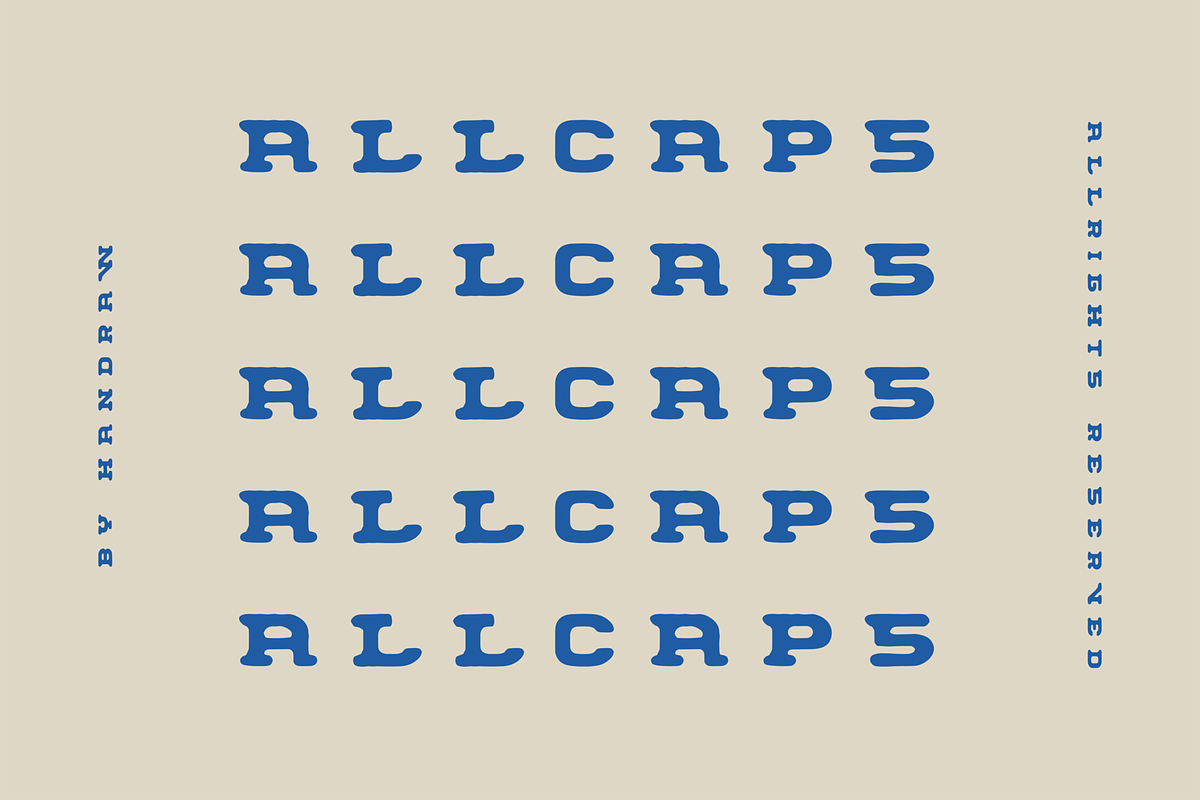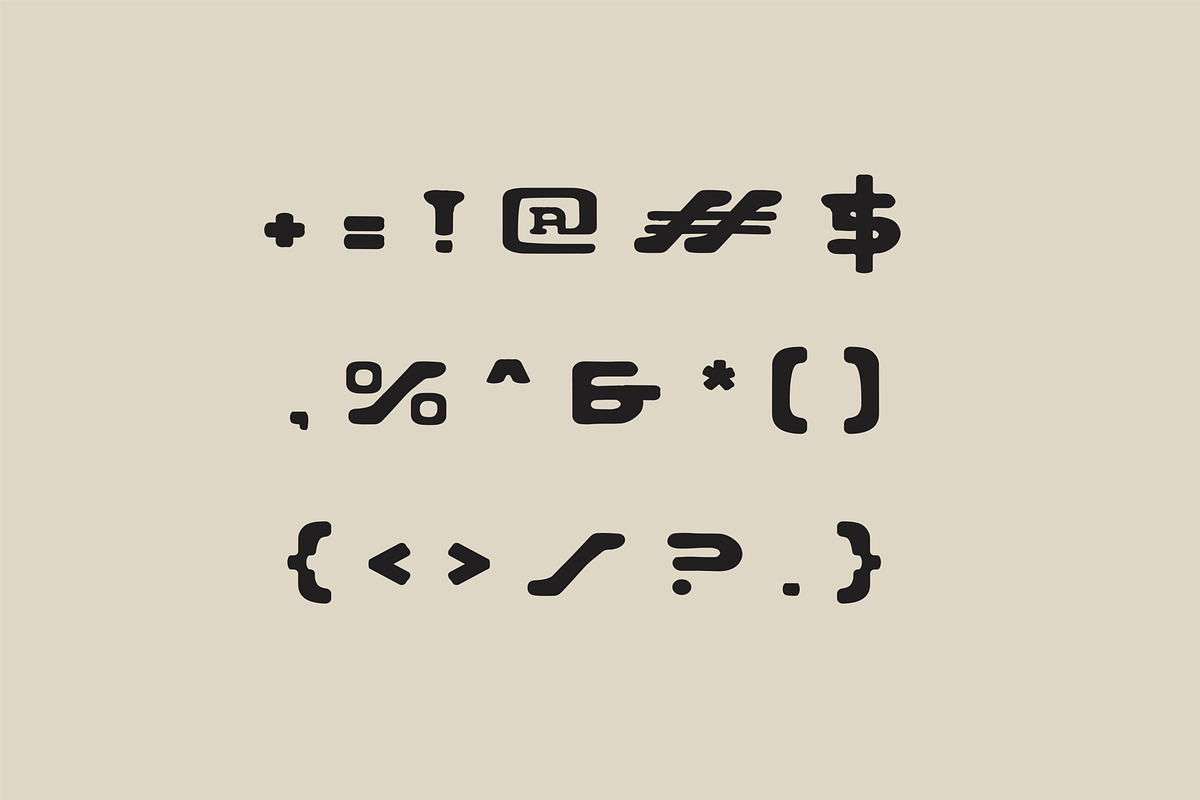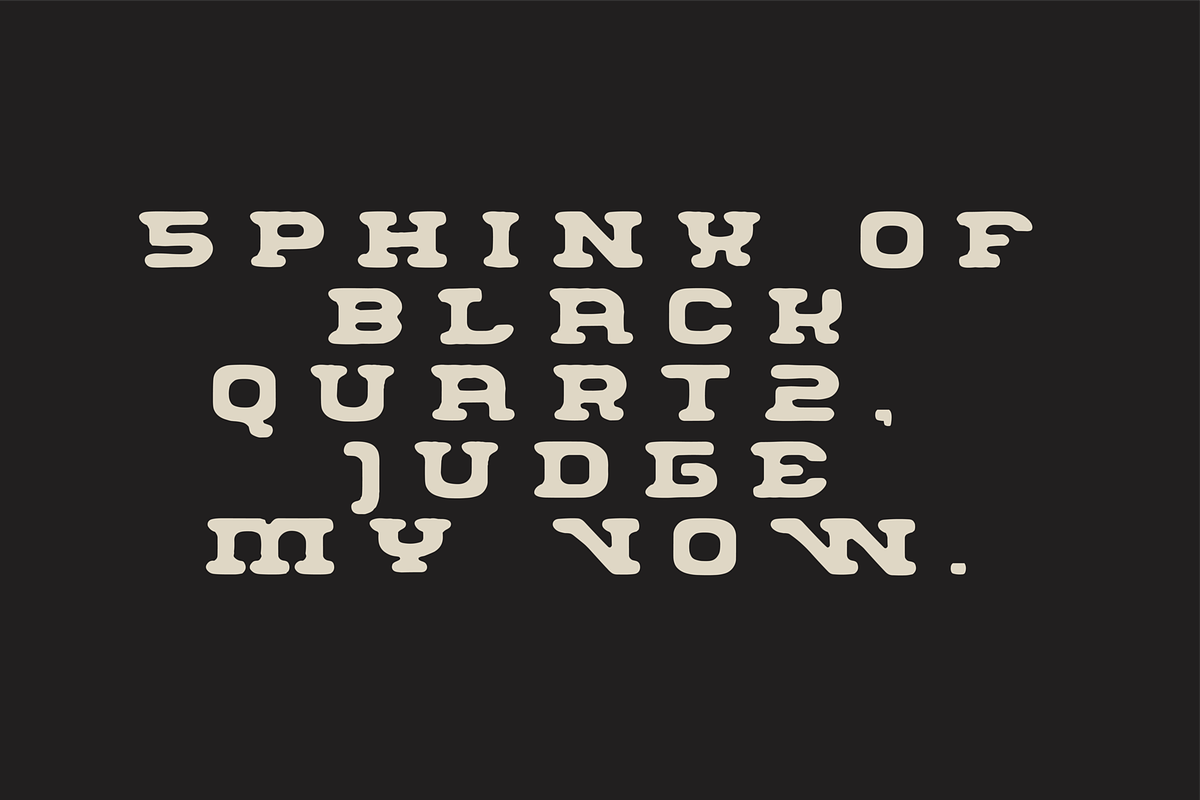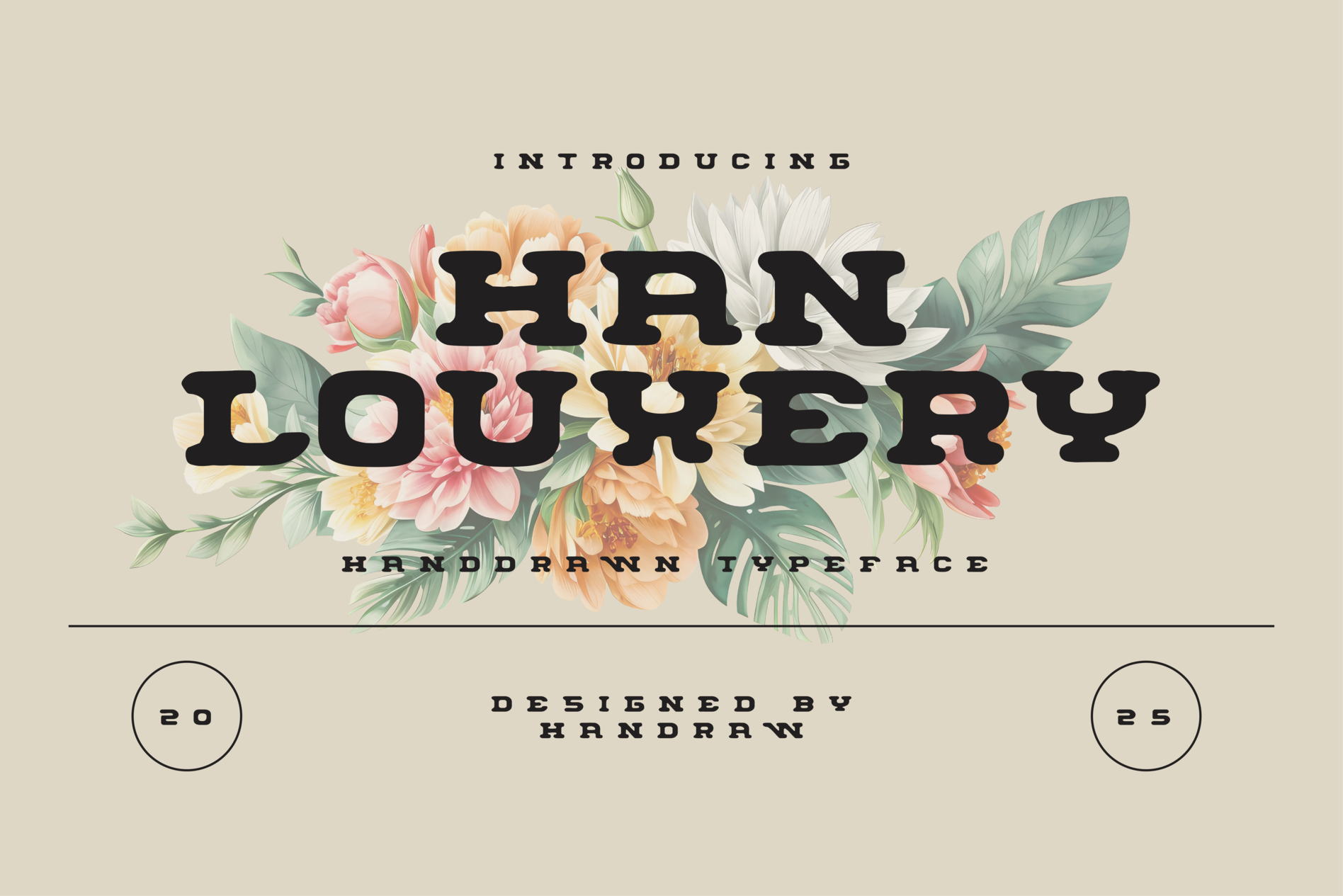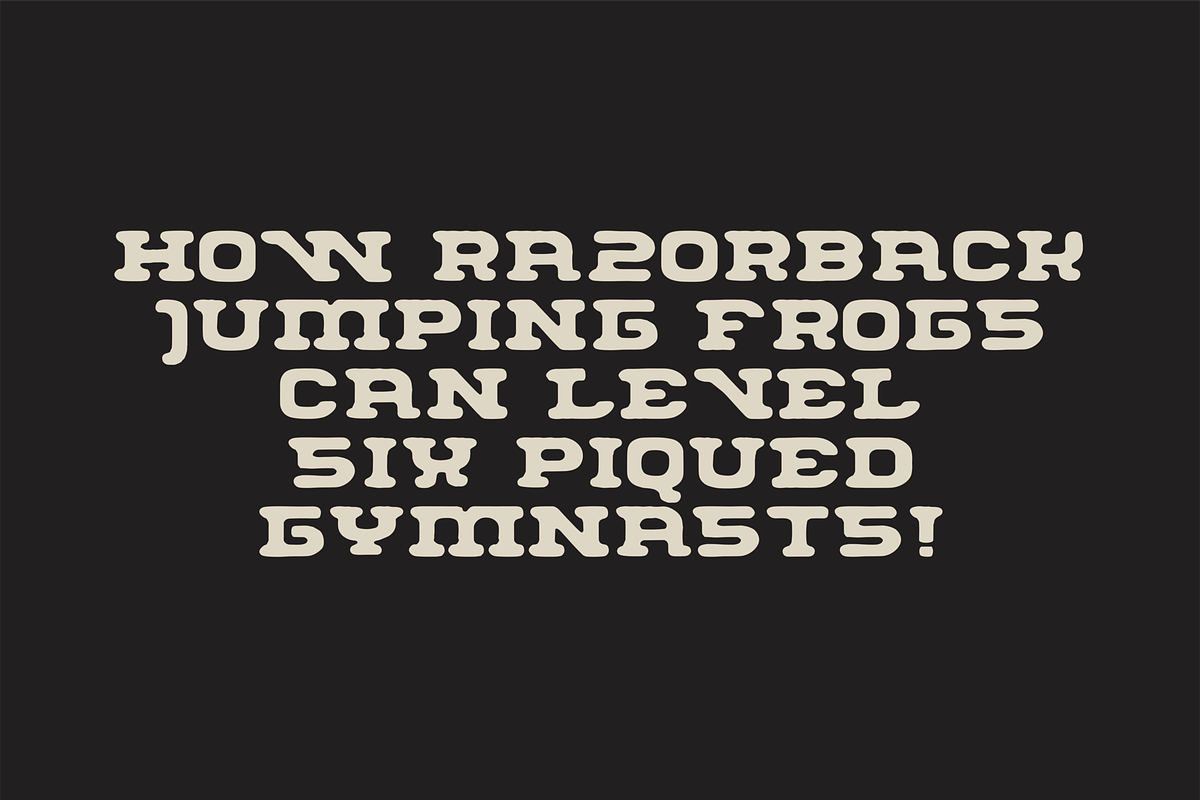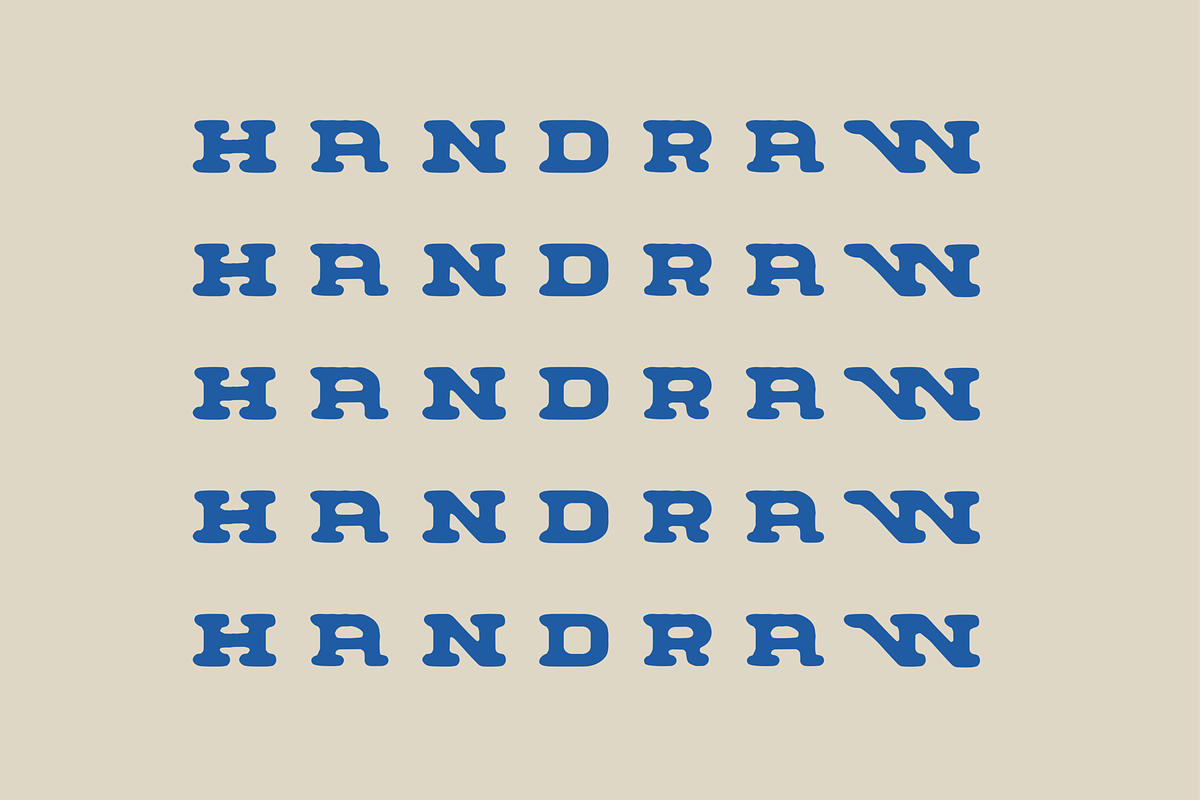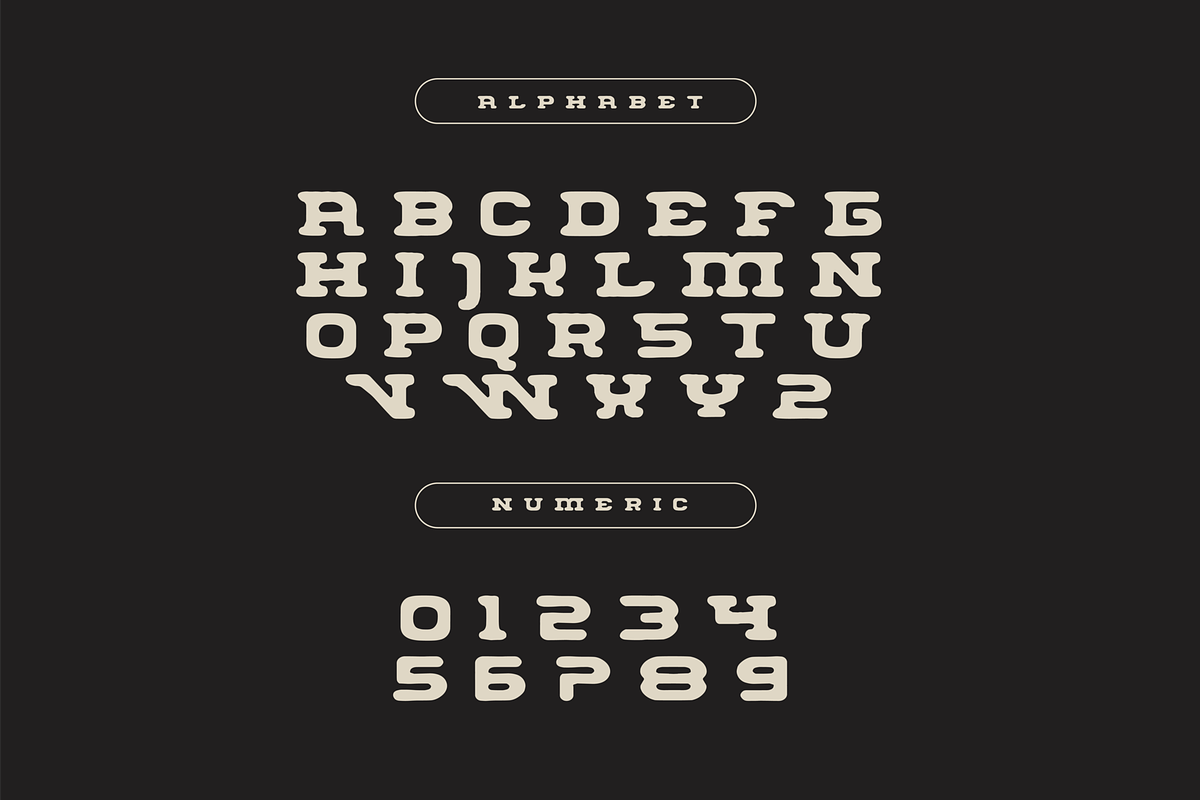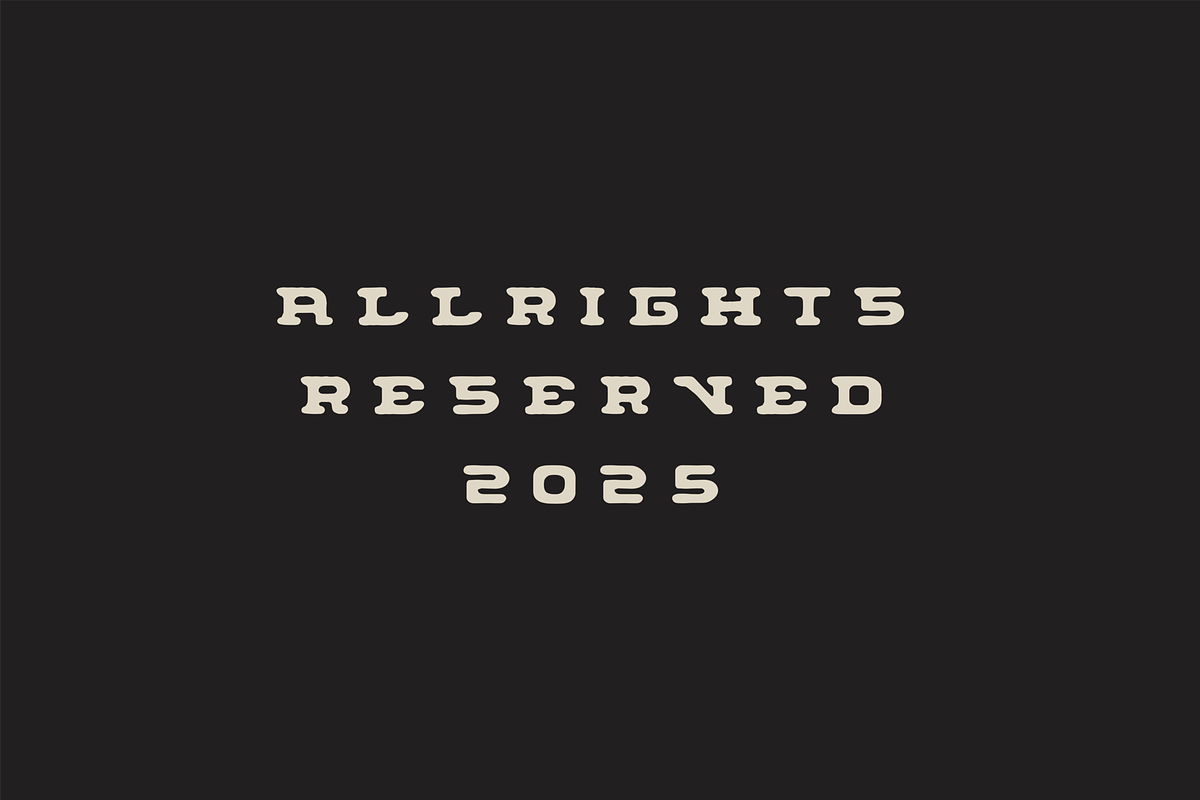
HAN Louxery - Charm Display Font
Han Louxery is a unique hand-drawn retro font that blends nostalgic charm with a modern flair. With its carefully crafted strokes, this font evokes the artistic style of vintage lettering while maintaining a clean, legible appearance. Its playful yet sophisticated design makes it perfect for a wide range of creative projects, from branding to posters, packaging, and more. The hand-drawn aesthetic adds a personal touch, making it ideal for designs that seek to convey warmth and authenticity. Whether used for headlines or logos, Han Louxery brings a touch of retro elegance to any design.